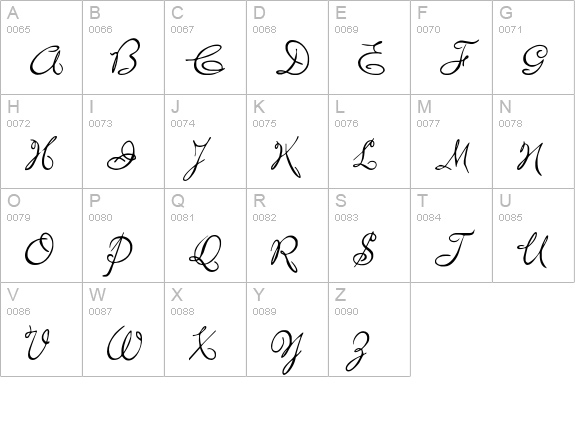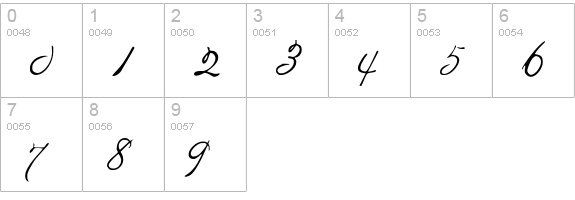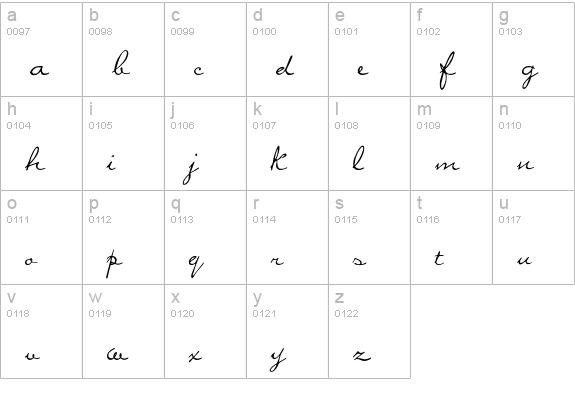
MissBrooks Font Details
MissBrooks font is a stunning display typeface that exudes elegance and sophistication. With its graceful curves and delicate serifs, this font is perfect for adding a touch of charm to your design projects. Whether you're creating invitations, logos, or branding materials, MissBrooks will elevate your work to the next level. The best part? MissBrooks font is completely free to download at FontsMarket.com. That's right, you can enhance your designs with this beautiful font without spending a dime. So why wait? Download MissBrooks today and let your creativity shine!